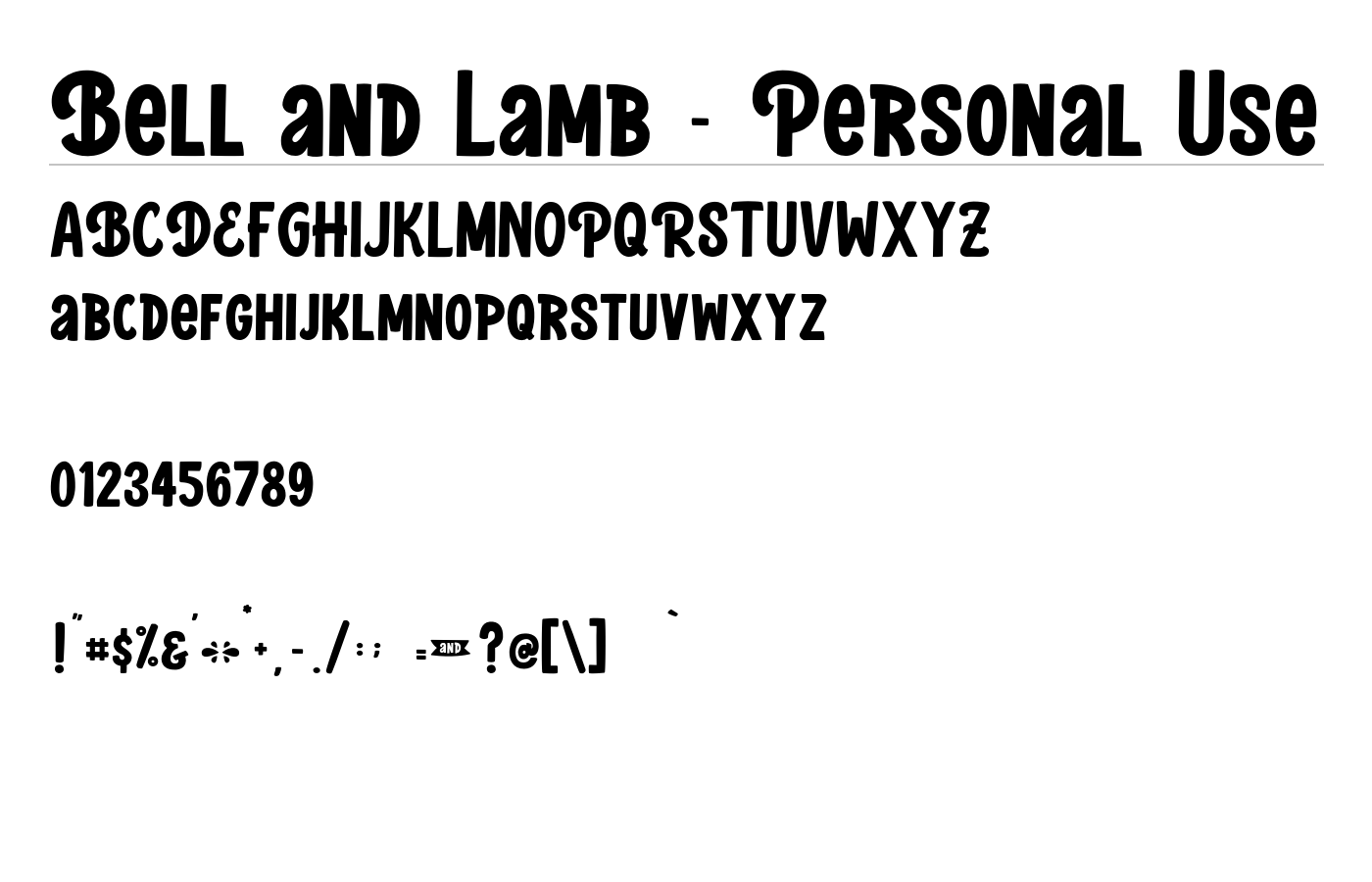
Bell and Lamb is a playful and bold sans serif font with a quirky, hand-drawn feel. Its thick strokes and unique letter shapes create a friendly, approachable vibe, making it ideal for fun branding, children's materials, or casual projects that want to stand out with a touch of personality. This font works best in headlines and logos where its character can shine.
Bell and Lamb - Personal Use Font
About Bell and Lamb - Personal Use Font
| Font family | Bell and Lamb - Personal Use Font |